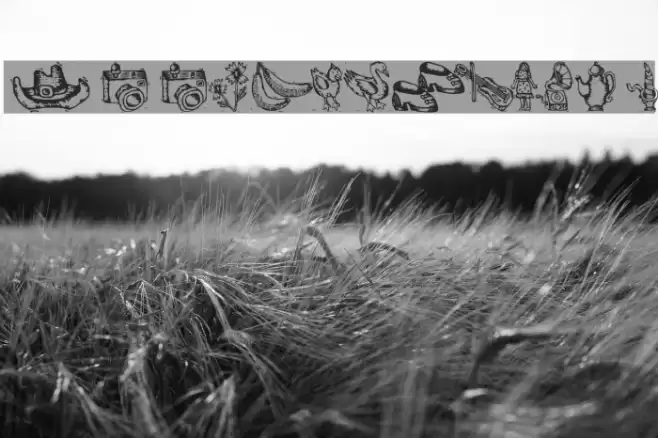
WoodcutsAgain Font
WoodcutsAgain Description
A highly decorative dingbat set featuring detailed, hand-drawn woodcut-style illustrations of various objects, animals, and items, each corresponding to a letter or symbol. The images have a vintage, textured look reminiscent of traditional printmaking.
Ornate woodcut-style dingbat illustrations for each character from Uncategorized fonts.
- Proposed Projects: Scrapbooking, vintage-themed invitations, decorative borders, educational materials, creative posters.
- Overall Style: Vintage, Decorative
- Use Case: Decorative elements, Illustrative accents, Themed graphics